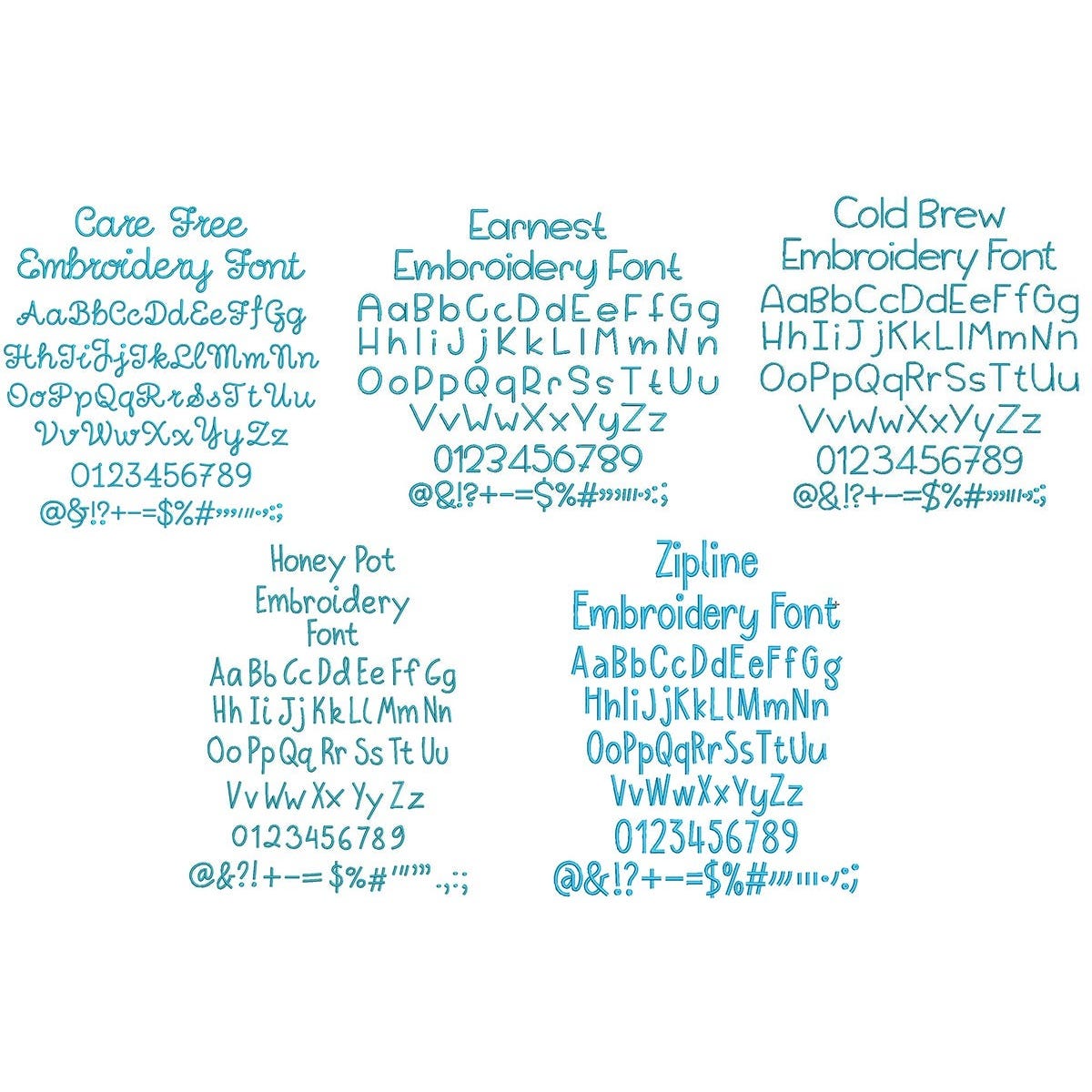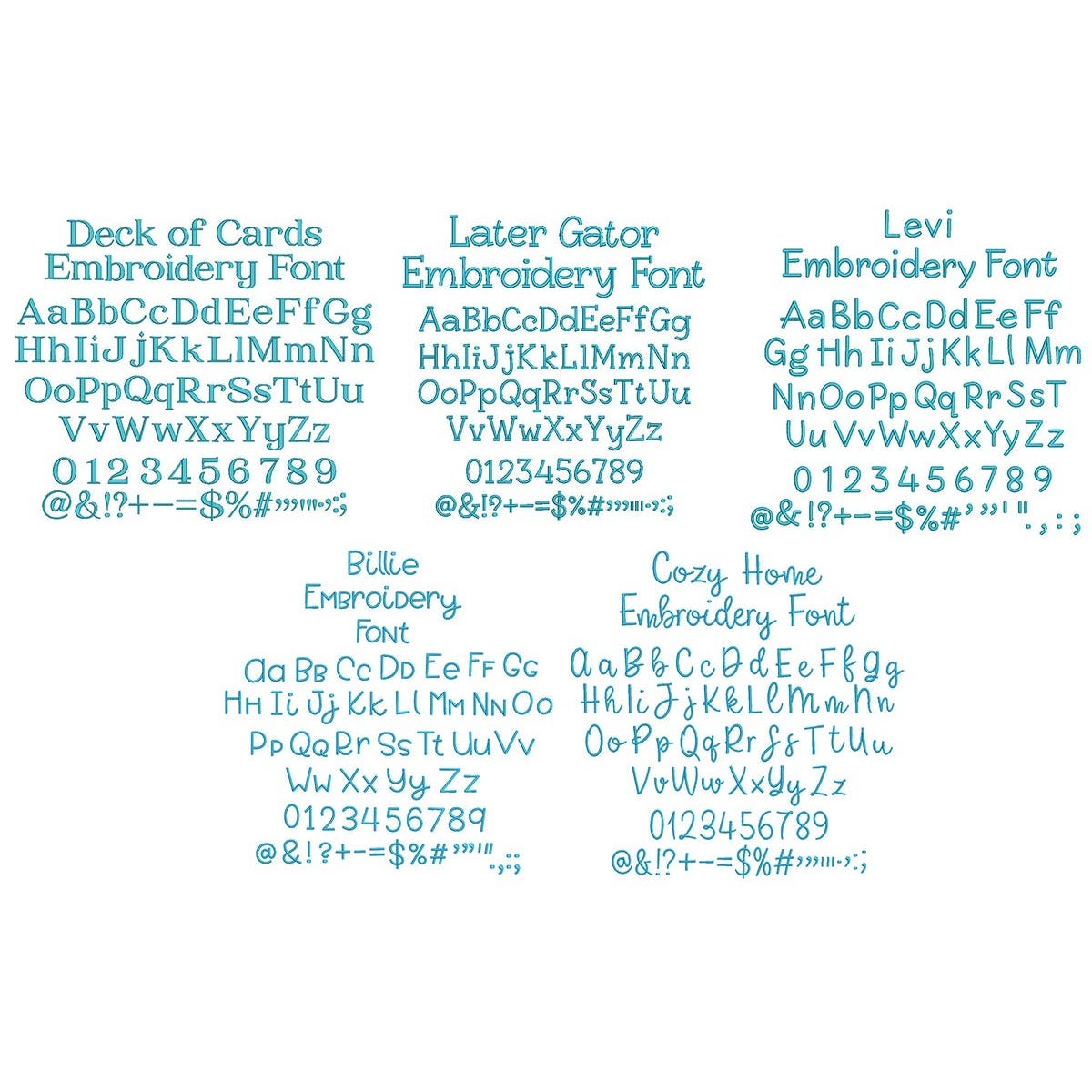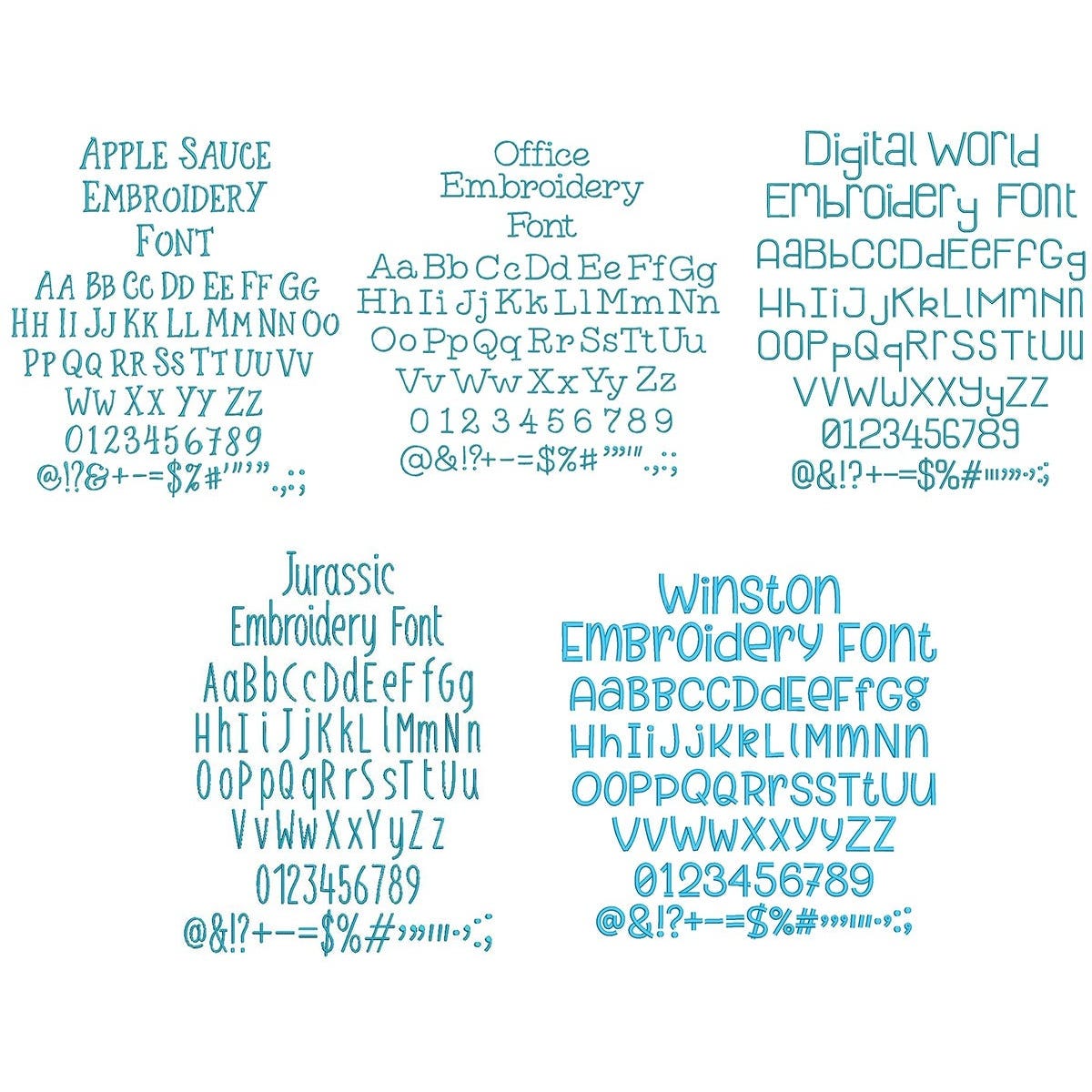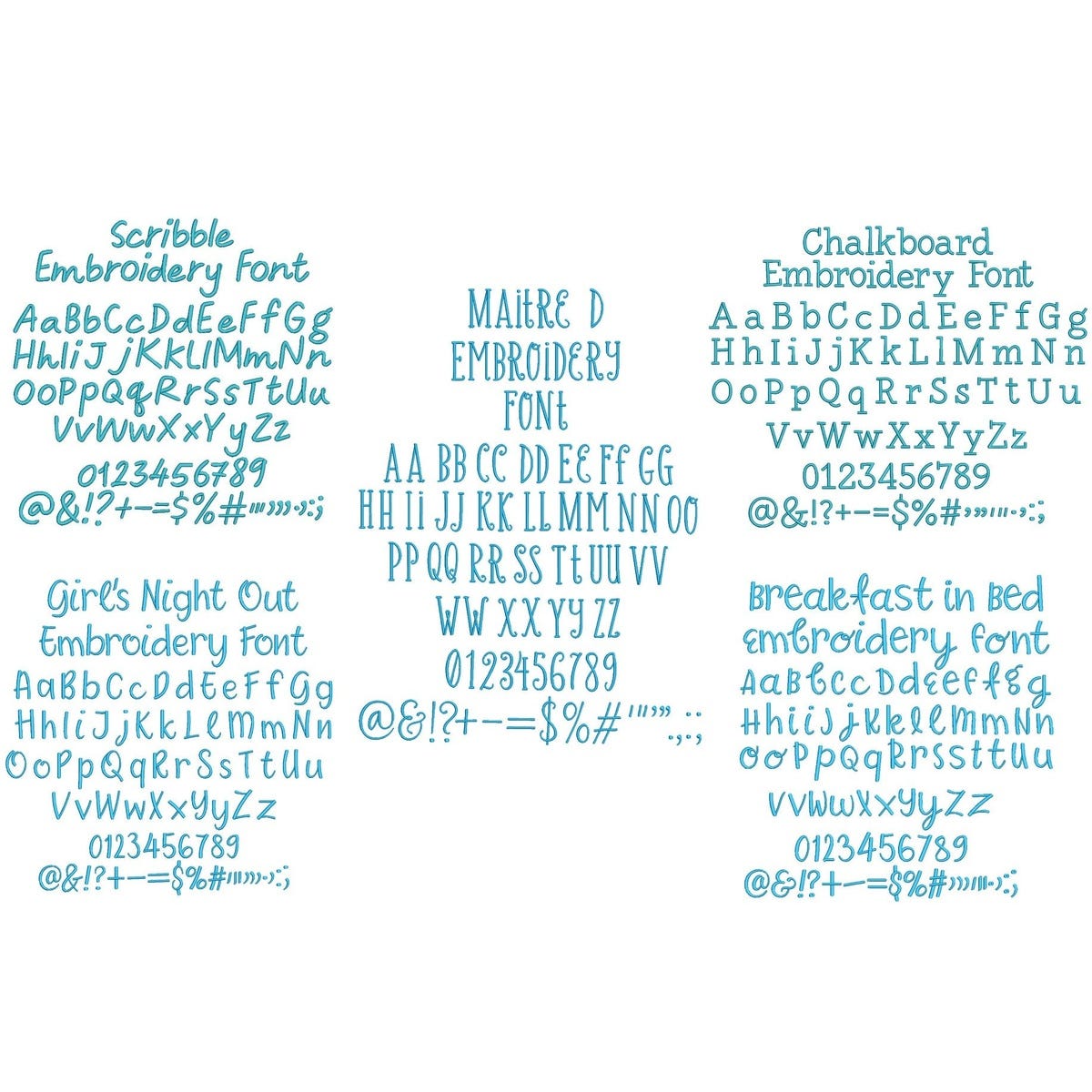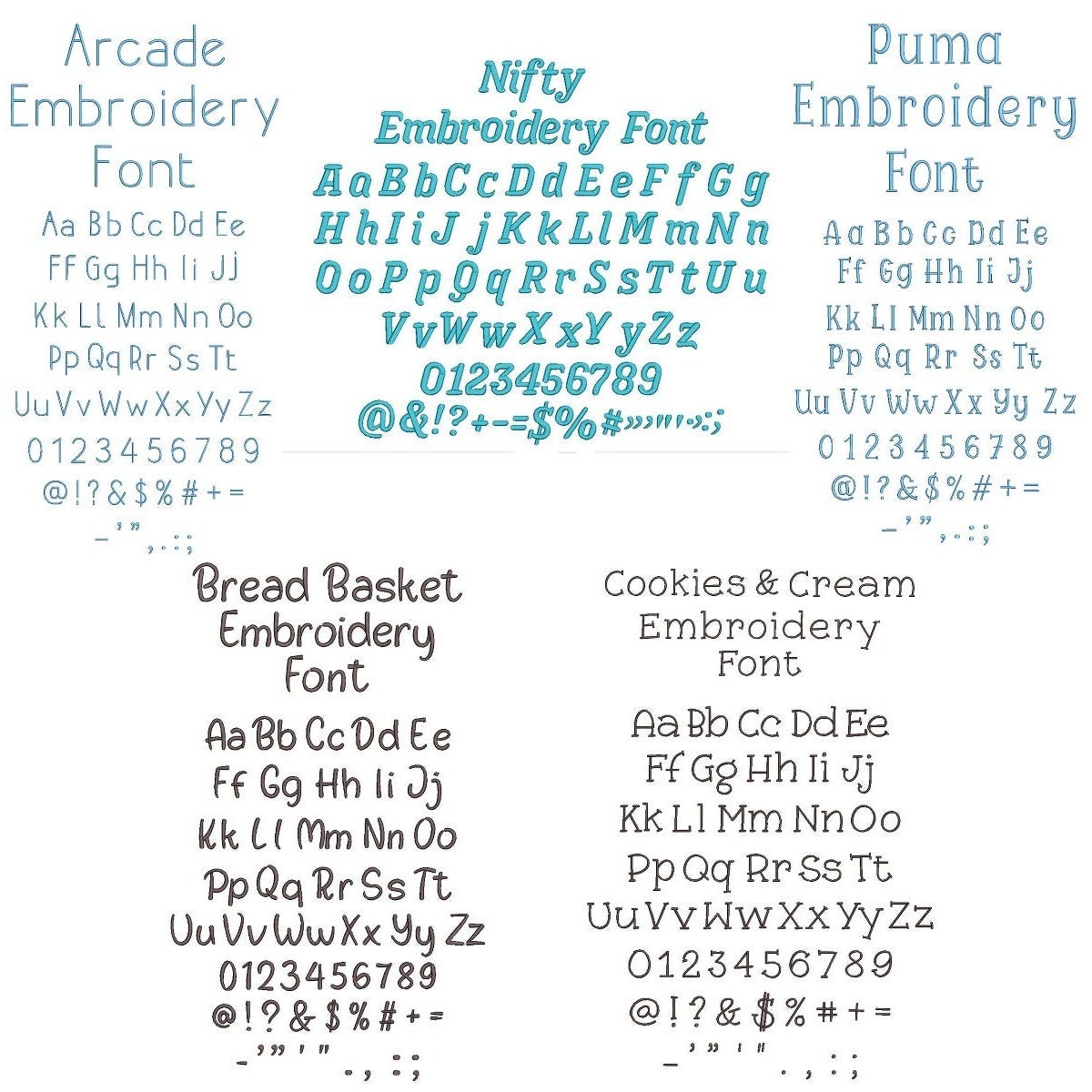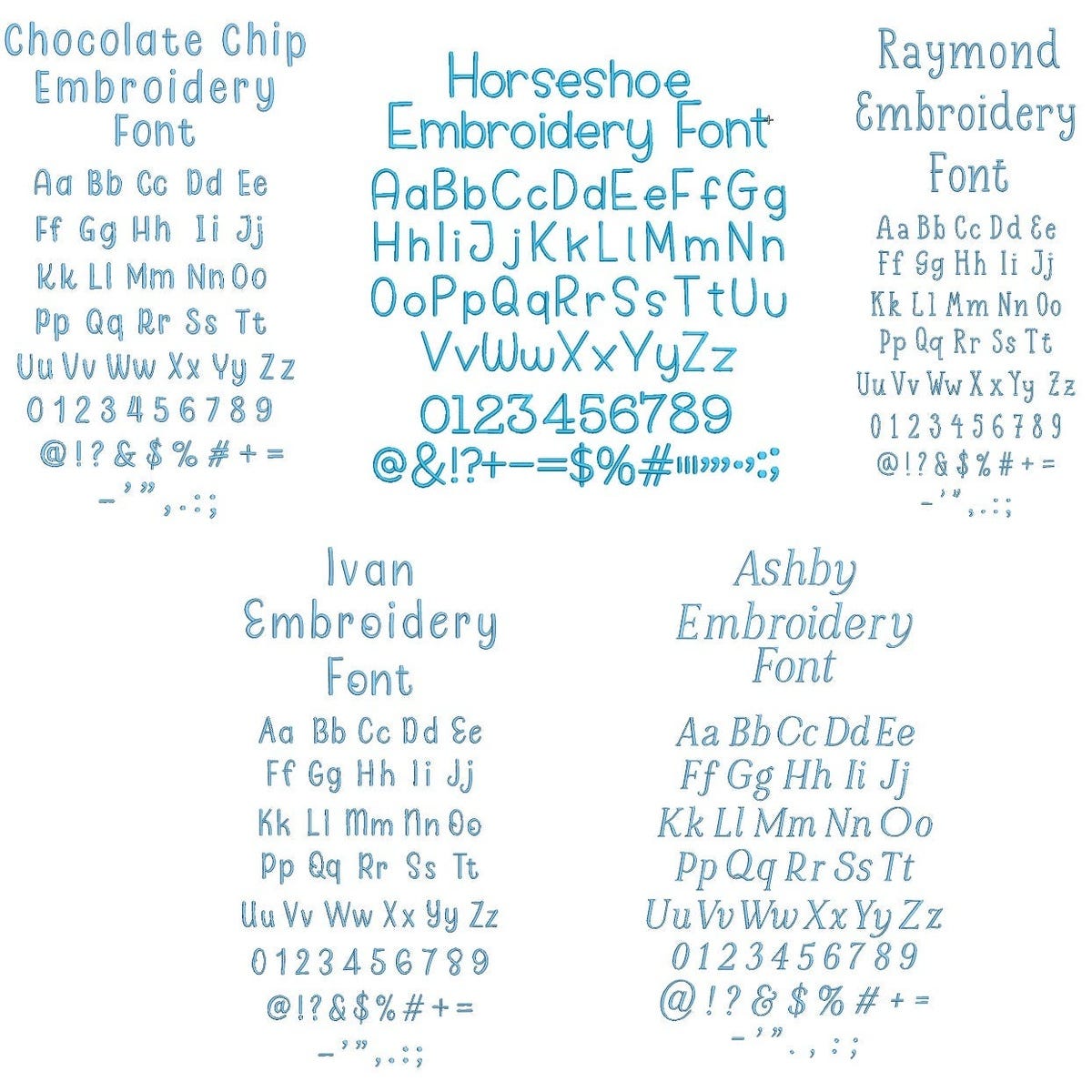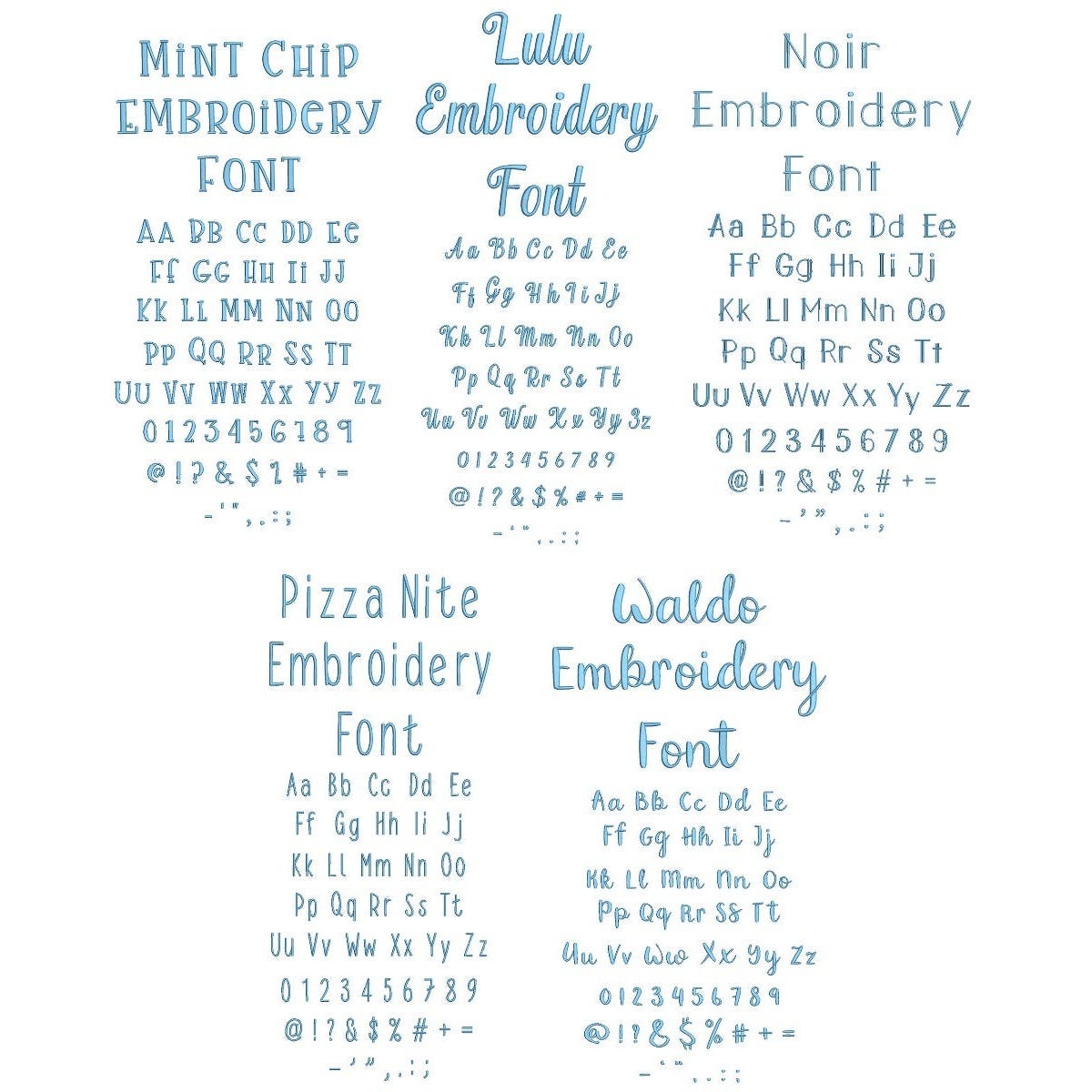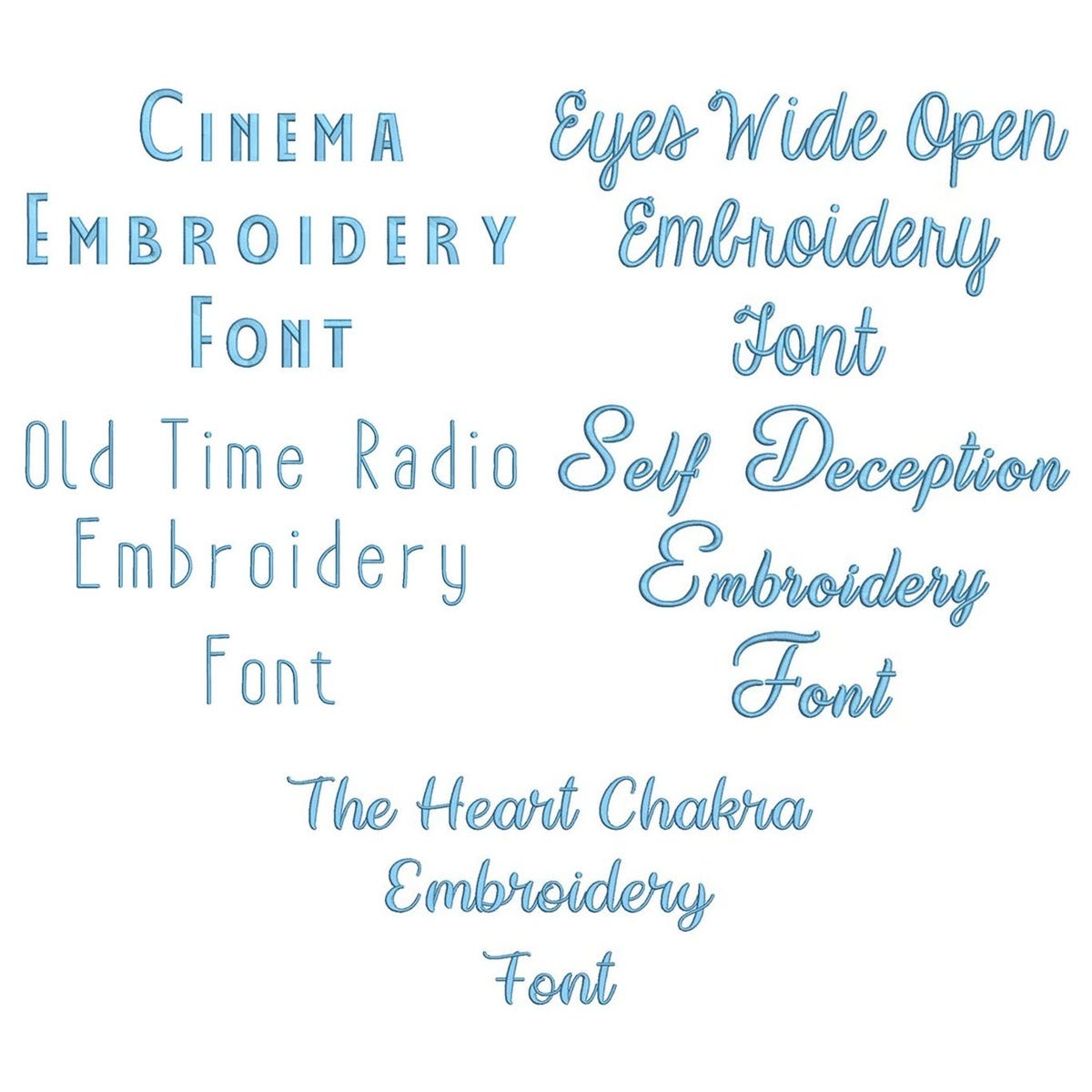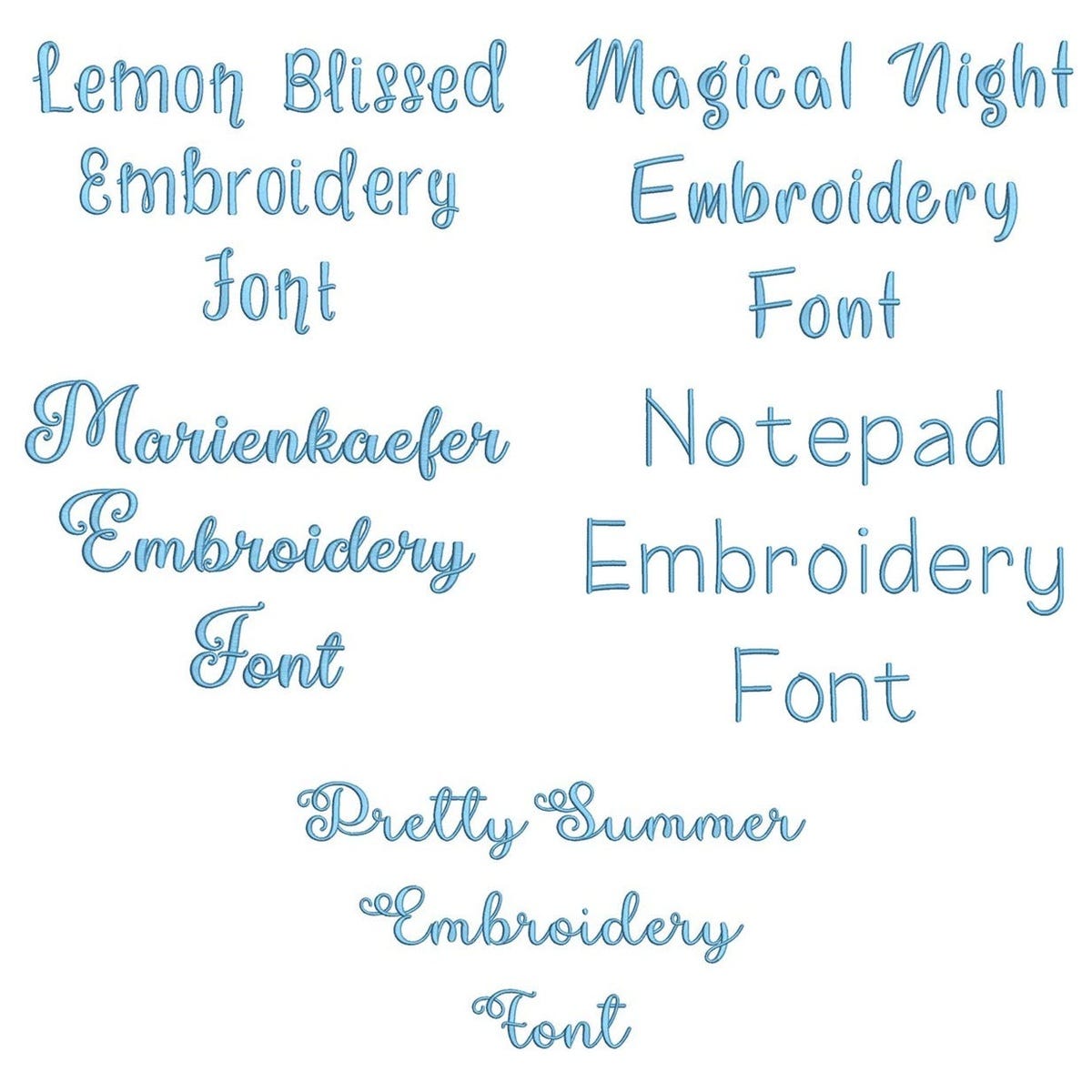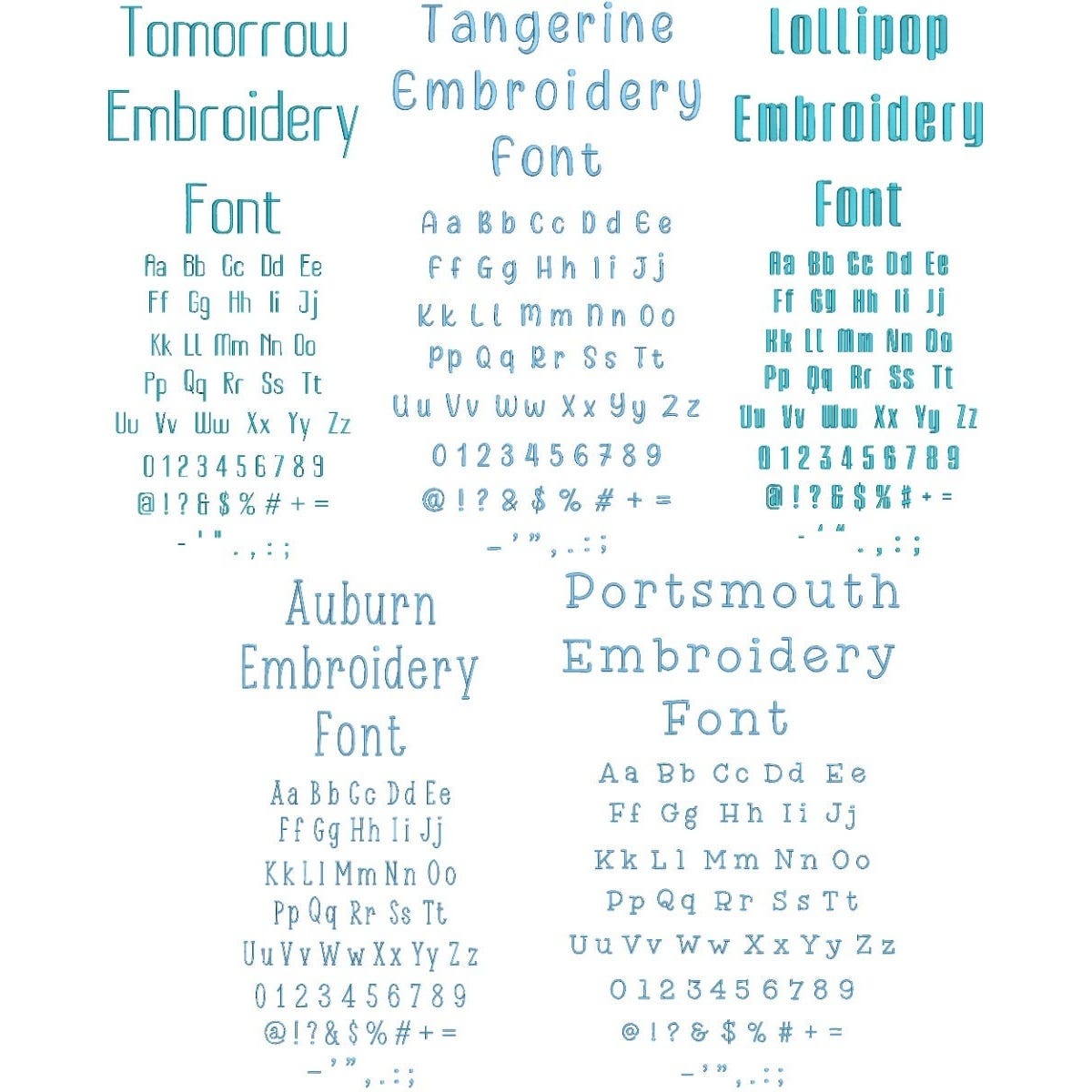
Keep the petite personalization possibilities going with the Quarter Inch Embroidery Font 2 Bundle! Featuring Quarter Inch font bundles 13-22, this versatile collection gives you even more tiny lettering options for adding the perfect personalized touch.